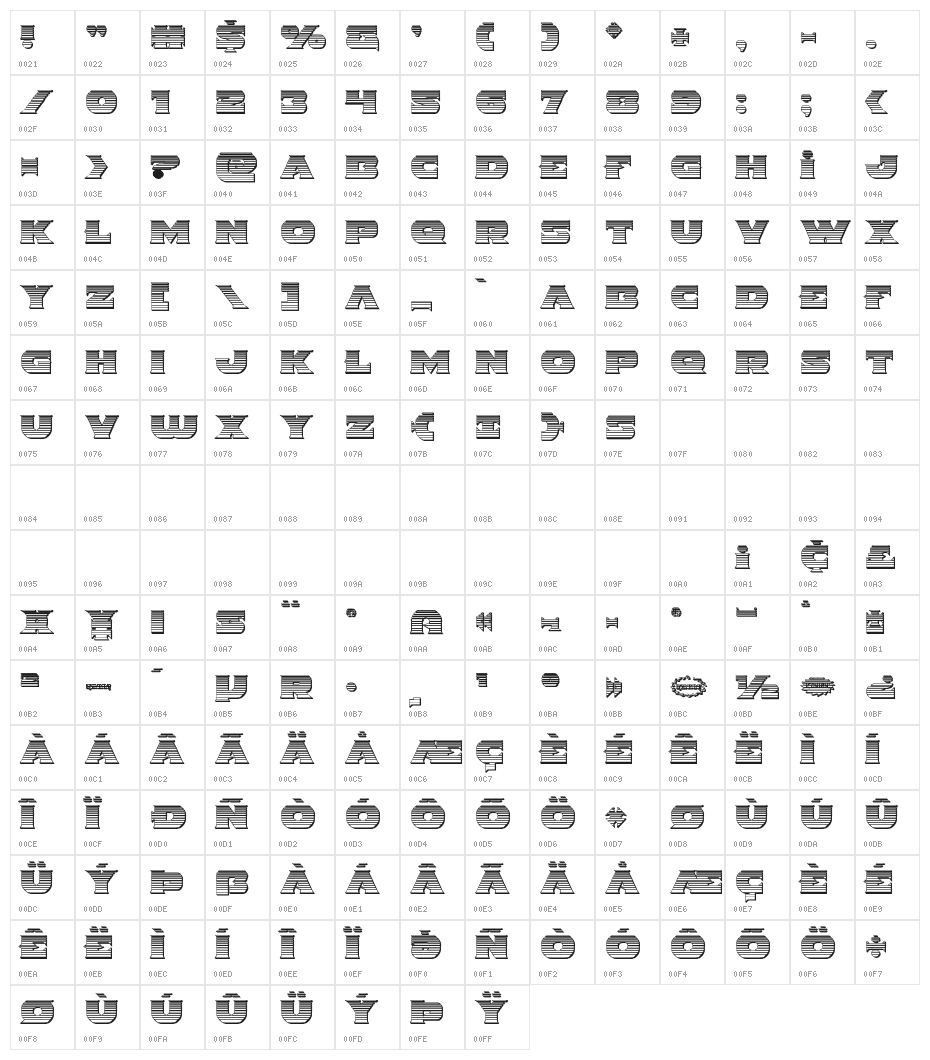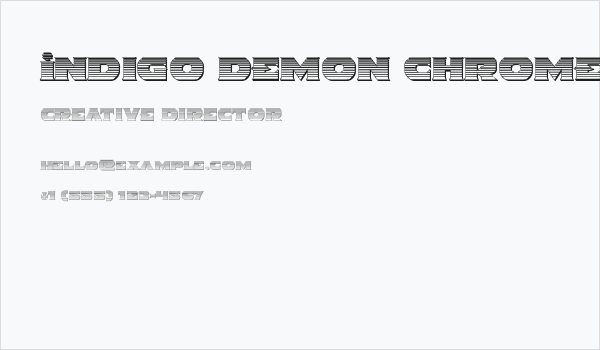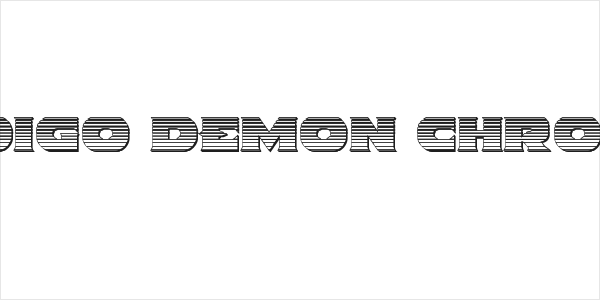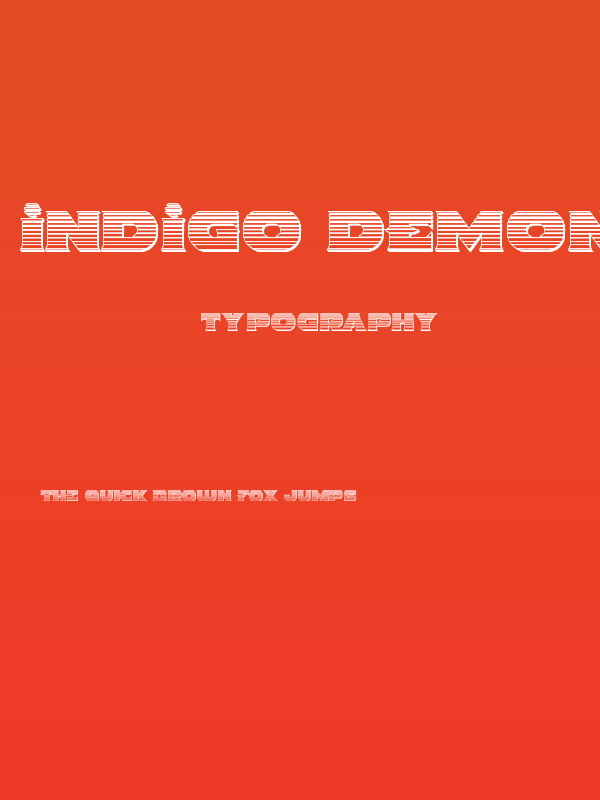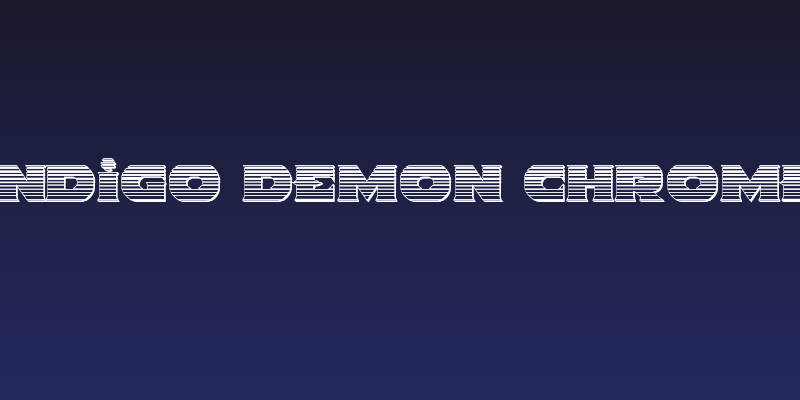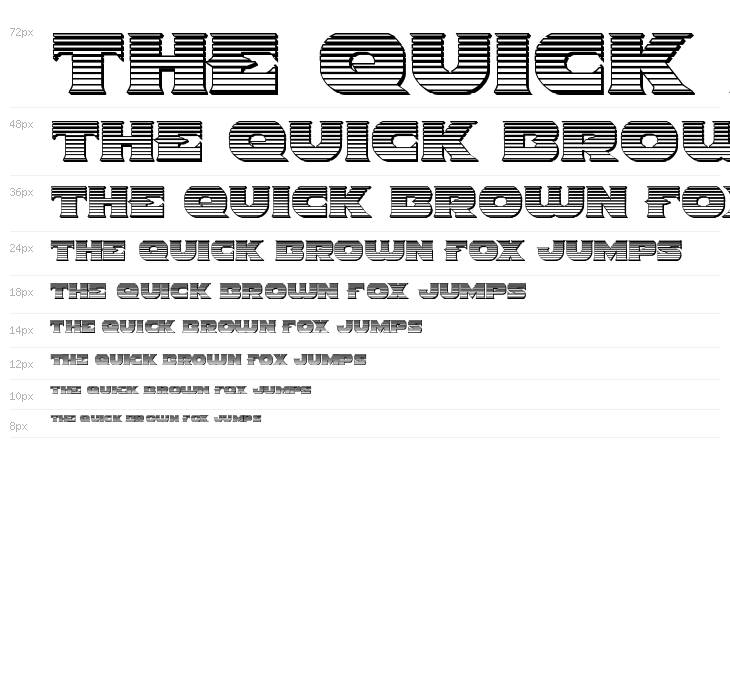
Indigo Demon Chrome Font
Indigo Demon Chrome Description
This font features a bold, decorative style with a unique striped pattern running horizontally through each character. The uppercase and lowercase letters maintain a consistent width, giving the font a uniform appearance. The characters are constructed with a series of parallel lines, creating a sense of depth and texture. This design choice gives the font a futuristic and industrial feel, making it stand out in any design project. The numbers and special characters follow the same stylistic approach, ensuring a cohesive look across all elements. The overall design is eye-catching and ideal for projects that require a bold statement.
Overall StyleFuturistic, Industrial
Proposed ProjectsIdeal for posters, album covers, branding, and any project that requires a bold, futuristic look.